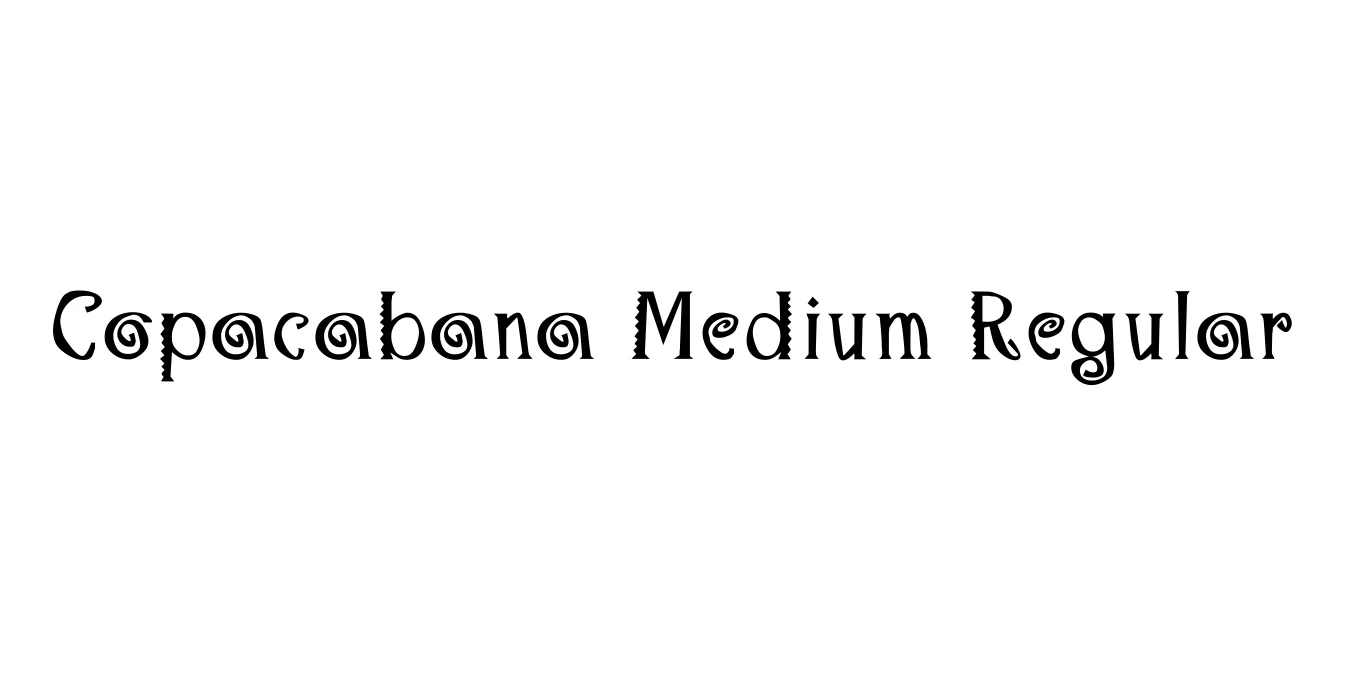
Copacabana Medium Regular
Designed by Michael Hagemann
Copacabana Medium Regular is a vibrant and rhythmic display typeface inspired by the mid-century aesthetics of Brazilian beach culture and the iconic mosaic patterns found along the Rio de Janeiro coastline. Developed by Michael Hagemann at Fontmesa, this font captures a unique sense of tropical elegance and relaxed movement, making it a premier choice for designers looking to inject a touch of leisure and sophisticated flair into their projects.
The font architecture features smooth, flowing letterforms with a consistent stroke weight that balances artistic calligraphy with modern readability. Over the years, the Copacabana family has become a staple in the travel and hospitality industry, frequently appearing in advertising campaigns, luxury resort branding, and event invitations that aim to evoke a sense of warmth, sun, and vacation vibes.
Copacabana Medium Regular Best Uses
Perfect for resort logos, holiday brochures, and tourism advertisements.
Adds a festive yet elegant touch to summer wedding or party stationery.
Highly eye-catching for promotional posts related to fashion and lifestyle.
Ideal for beauty products or food items requiring a natural, breezy aesthetic.